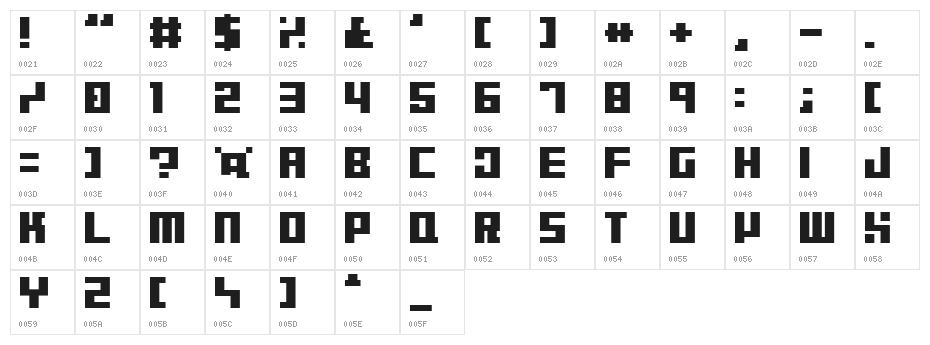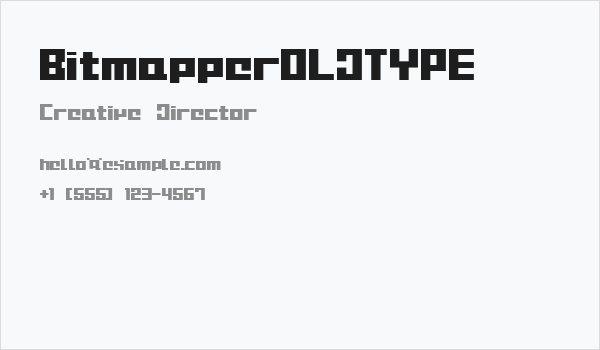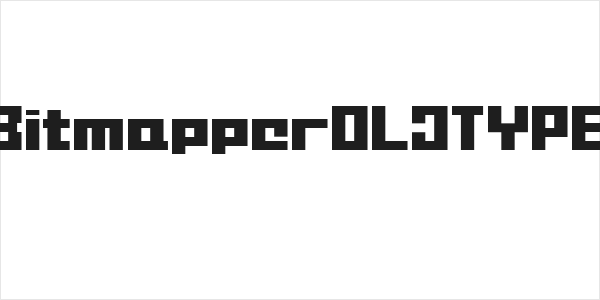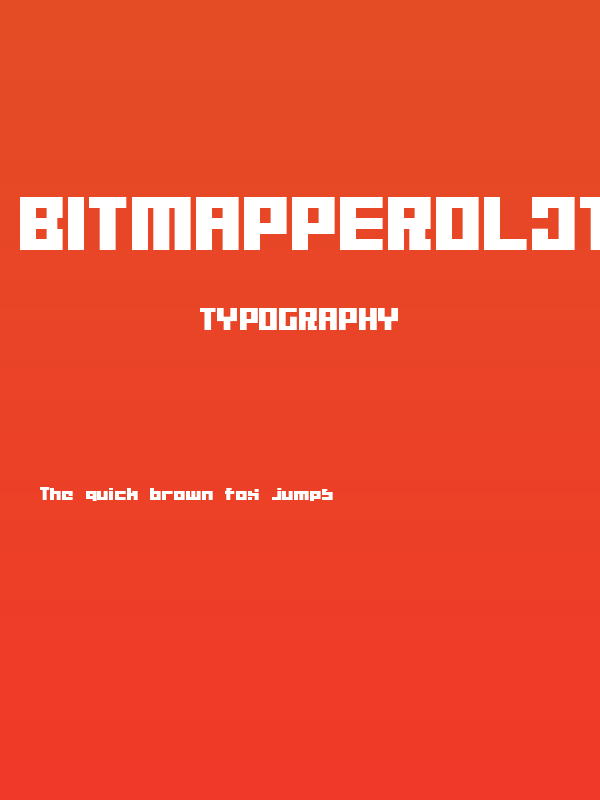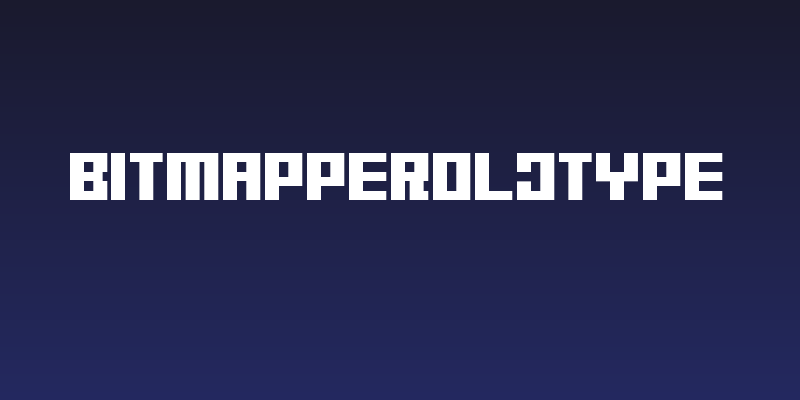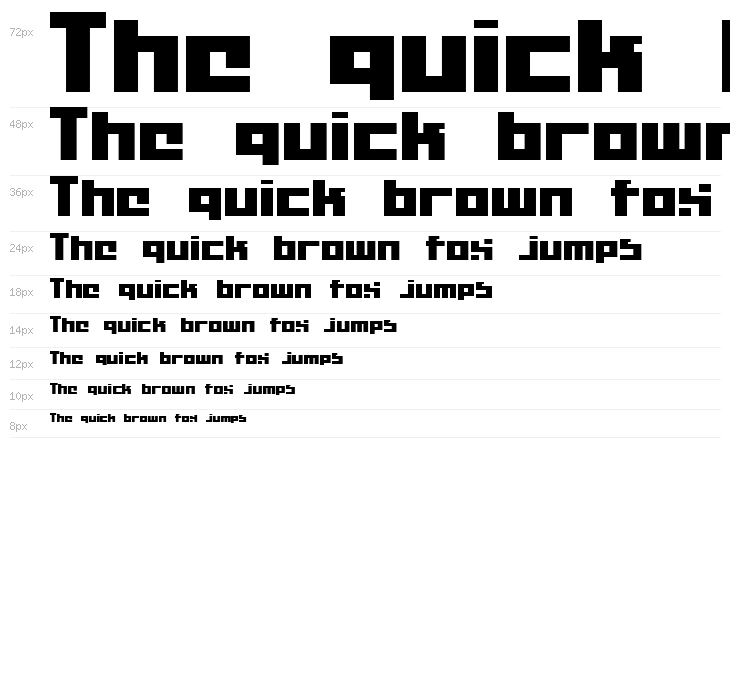
BitmapperOLDTYPE Font
BitmapperOLDTYPE Description
This font features a bold, blocky design reminiscent of early digital or pixelated typefaces. Each character is constructed with sharp, angular edges, giving it a distinctly retro and geometric appearance. The uppercase and lowercase letters maintain a consistent height, contributing to a uniform look. Numbers and special characters follow the same design principles, ensuring a cohesive style throughout. The font's strong, solid lines make it highly legible and impactful, suitable for designs that require a vintage or digital aesthetic.
| Overall Style | Vintage |
| Use Case | Logos, Headlines, Posters |
| Proposed Projects | Ideal for video game designs, retro-themed posters, digital art projects, and any creative work that seeks a nostalgic or tech-inspired look. |